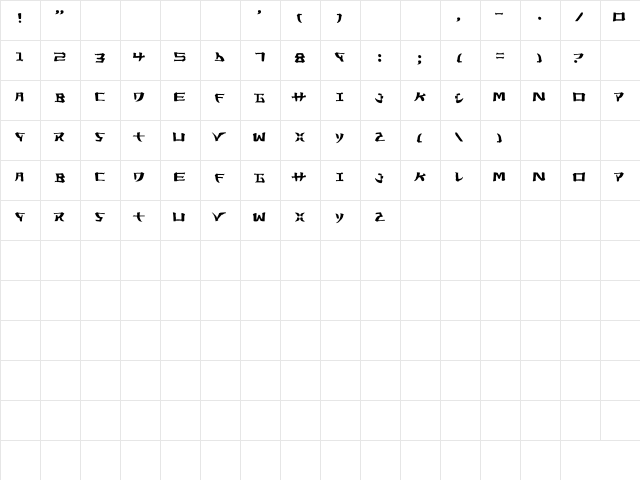
Yorstat Regular Free Font
Yorstat Regular
Yorstat Family
Yorstat Regular
Design Context for Yorstat
Yorstat is a composed and adaptable typeface that performs quietly and consistently across a wide range of design contexts.
Pro Tip: Use Yorstat in both headline and body roles to test its range before committing to a single application.